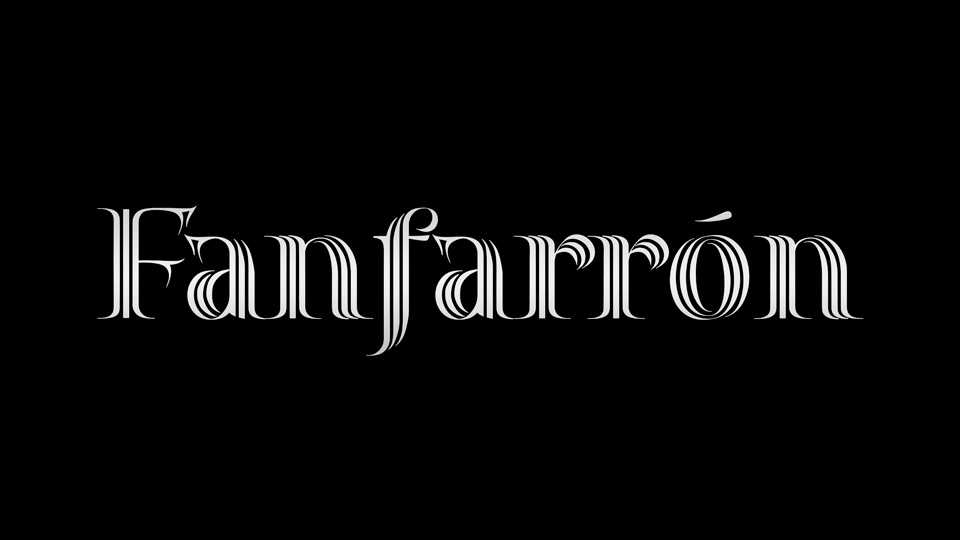
Download Fanfarrón font, a luxurious, stylish typeface for a pompous and pretentious impression. Fanfarrón is ideal for vintage design, fashion branding and editorial uses.
Designer: Tup Wanders